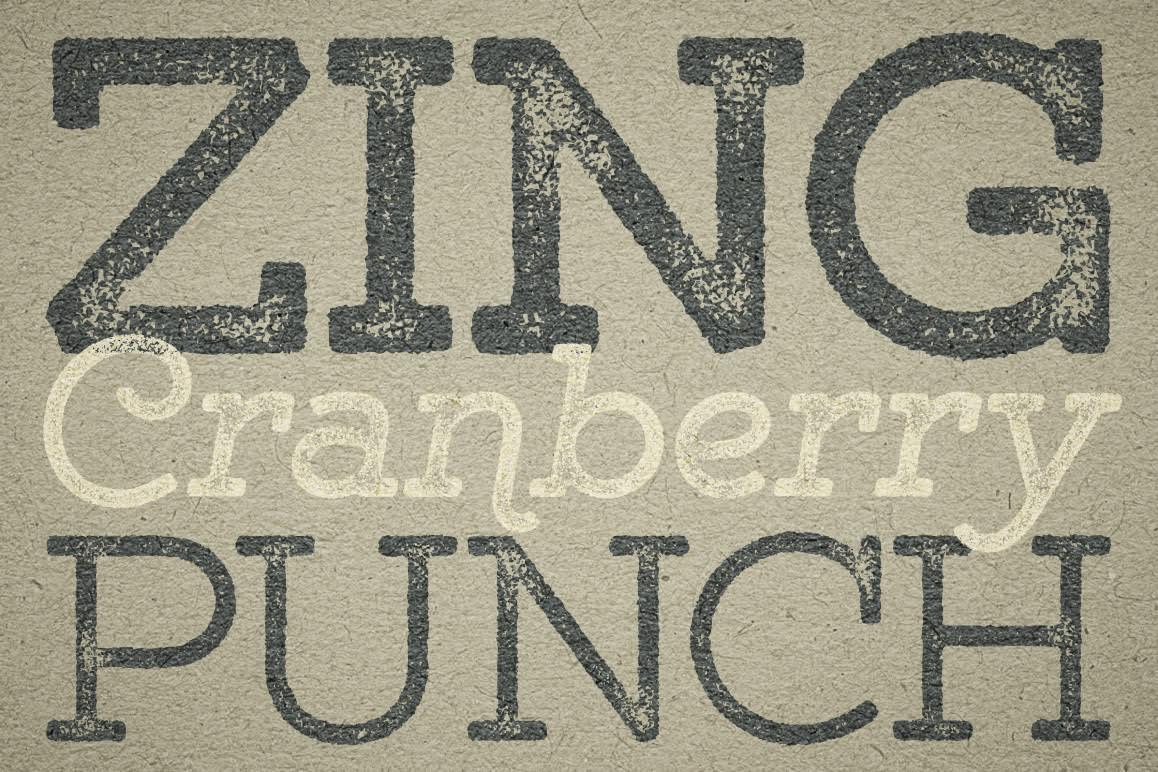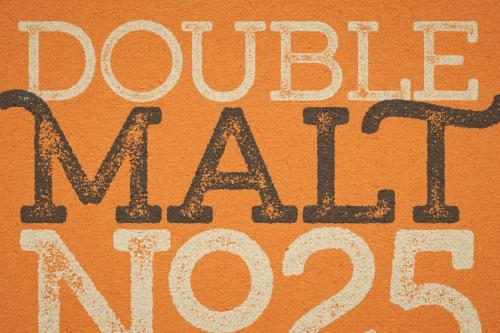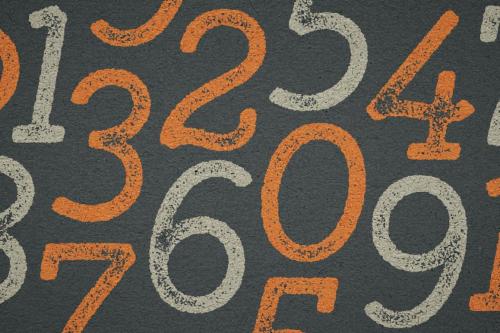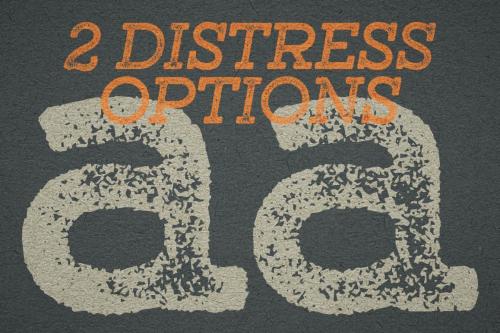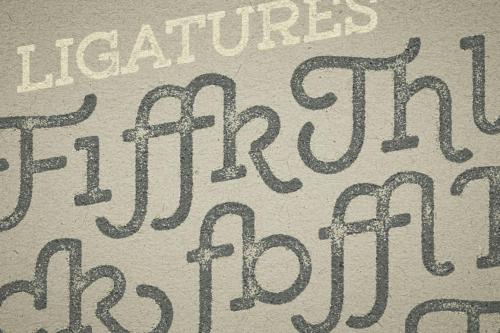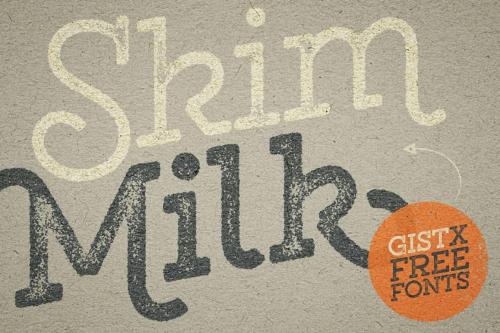
GistX Font Family is the solid, letterpress printed version of Gist inline slab. The family consists of 12 fonts total: Light, Regular and Bold (upright and slanted), each with two different distress versions.
GistX is a collision between slab-serif and indie script. The standard characters have the most traditional letterforms, while alternates add funk with swashes and script-inspired curves. The result is a unique modern slab with a vintage/retro vibe.
- Designer: Ryan Martinson